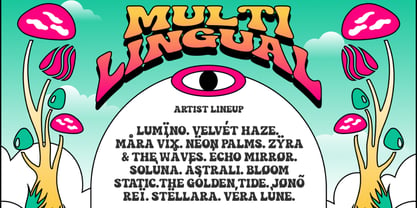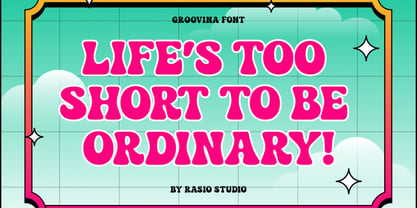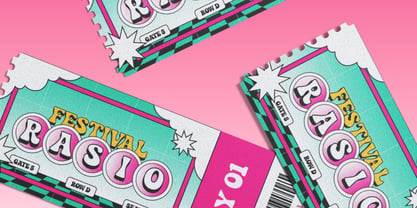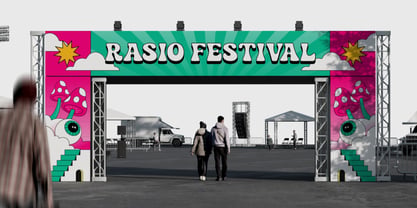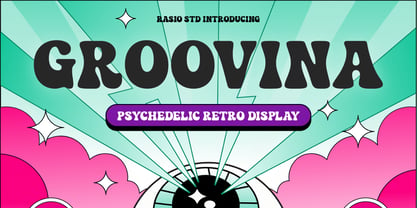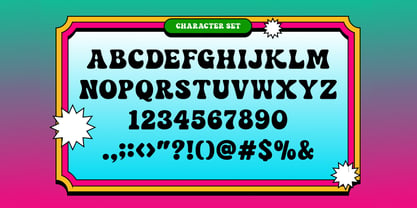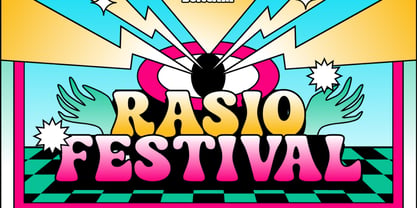
Groovina
by Rasio Studio
The Groovina Font Family was designed by Fajar Indra and published by Rasio Studio. Groovina contains 1 styles. More about this family
Groovina is a psychedelic retro display font inspired by the vibrant visual culture of the 1960s and 1970s. With its bold rounded letterforms, playful curves, and groovy personality, this typeface captures the spirit of vintage pop design and psychedelic art. Groovina is a psychedelic retro display font inspired by the vibrant visual culture of the 1960s and 1970s. With its bold rounded letterforms, playful curves, and groovy personality, this typeface captures the spirit of vintage pop design and psychedelic art.
Designers: Fajar Indra
Foundry: Rasio Studio